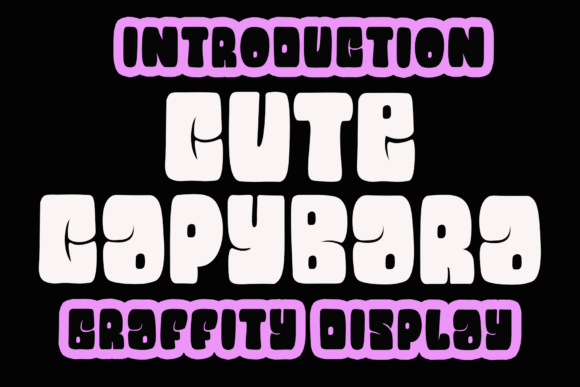
Cutes Capybara Font: The Perfect Addition to Your Summer Projects
Are you looking for a font that exudes fun, relaxation, and a carefree vibe? Look no further than Cutes Capybara Font! This charming display font is designed to bring a breezy, laid-back feel to any creative project or message. In this article, we’ll dive into the features and benefits of Cutes Capybara Font, and explore how it can elevate your summer posters, event flyers, and playful branding.
What is Cutes Capybara Font?
Cutes Capybara Font is a neat and casual display font that is perfect for adding a touch of whimsy and fun to your designs. With its clean lines and easygoing vibe, this font is ideal for creating eye-catching summer posters, event flyers, and playful branding materials. Whether you’re a designer, artist, or simply a DIY enthusiast, Cutes Capybara Font is a great addition to your font collection.
Key Features of Cutes Capybara Font
- Clean Lines: Cutes Capybara Font features clean lines that give it a fresh and modern look.
- Easygoing Vibe: This font exudes a carefree and relaxed vibe that’s perfect for summer projects.
- Cheerful: Cutes Capybara Font is a cheerful typeface that brings a smile to your designs.
- Playful: This font is perfect for playful branding, event flyers, and summer posters.
Perfect for Summer Projects
Cutes Capybara Font is specifically designed for summer projects, making it the perfect choice for:
- Summer Posters: Create eye-catching posters for summer events, sales, or promotions.
- Event Flyers: Design fun and playful flyers for concerts, festivals, or beach parties.
- Playful Branding: Add a touch of whimsy to your brand’s logo, packaging, or marketing materials.
Benefits of Using Cutes Capybara Font
Using Cutes Capybara Font in your designs offers several benefits, including:
- Unique Look: This font offers a unique and distinctive look that sets your designs apart.
- Easy to Read: Cutes Capybara Font is clean and easy to read, making it perfect for headlines and titles.
- Versatile: This font can be used for a wide range of projects, from posters and flyers to branding and packaging.
- Fun and Playful: Cutes Capybara Font adds a touch of fun and playfulness to your designs, making them more engaging and memorable.
- Use for Headlines: Use Cutes Capybara Font for headlines and titles to add a touch of whimsy and fun.
Cutes Capybara Font: The Perfect Addition to Your Font Collection
Cutes Capybara Font is a great addition to any font collection. With its unique look, ease of use, and versatility, this font is perfect for designers, artists, and DIY enthusiasts alike. Whether you’re working on a summer project or just want to add a touch of whimsy to your designs, Cutes Capybara Font is a great choice.
In conclusion, Cutes Capybara Font is a charming display font that is perfect for adding a touch of fun and relaxation to your designs. With its clean lines, easygoing vibe, and cheerful personality, this font is ideal for summer posters, event flyers, and playful branding. Whether you’re a designer, artist, or simply a DIY enthusiast, Cutes Capybara Font is a great addition to your font collection.
- What is Cutes Capybara Font? Cutes Capybara Font is a neat and casual display font that radiates fun and relaxation.
- What is Cutes Capybara Font used for? Cutes Capybara Font is perfect for summer posters, event flyers, and playful branding.
- Is Cutes Capybara Font easy to read? Yes, Cutes Capybara Font is clean and easy to read, making it perfect for headlines and titles.